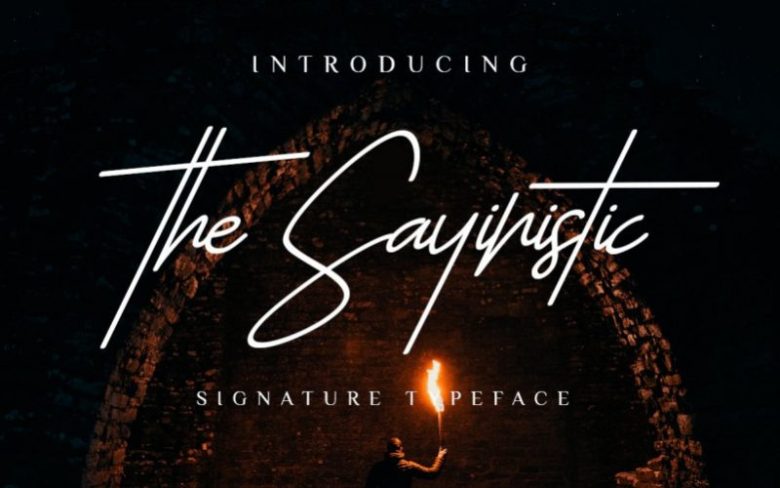
The Sayinistic Handwritten Font
Introduce ” The Sayinistic ” Give your designs an authentic handcrafted feel. “The Sayinistic” is perfectly suited to signature, stationery,photography, logo, typography quotes, magazine or book cover, website header, clothing, branding, packaging design ,wedding invites and bussiness cards and more License: This font included for personal, commercial use, multiple projects, behalf of a client. Fonts may be printed on to products that are subsequently sold, websites and within website design.